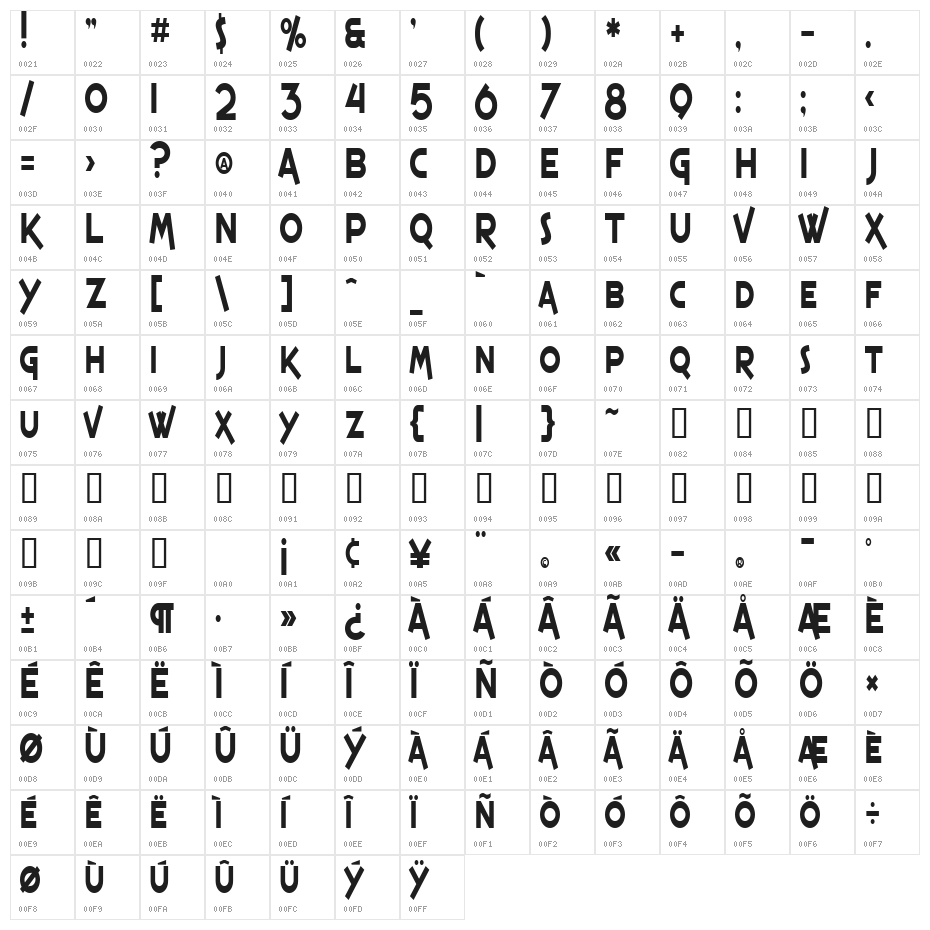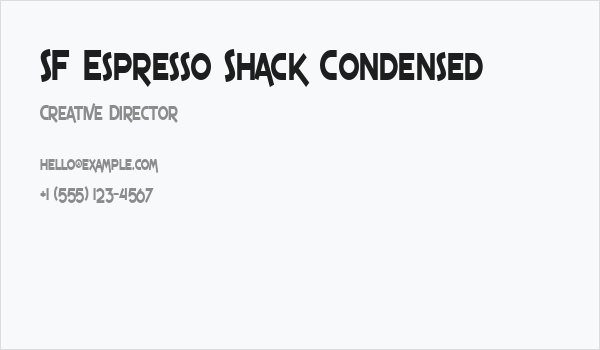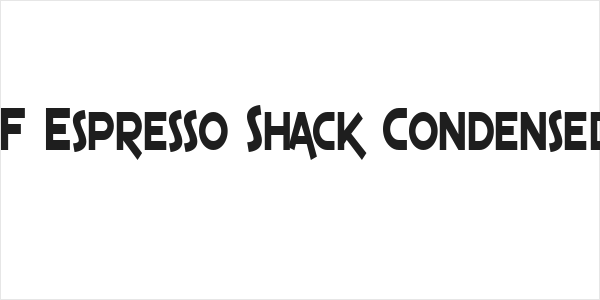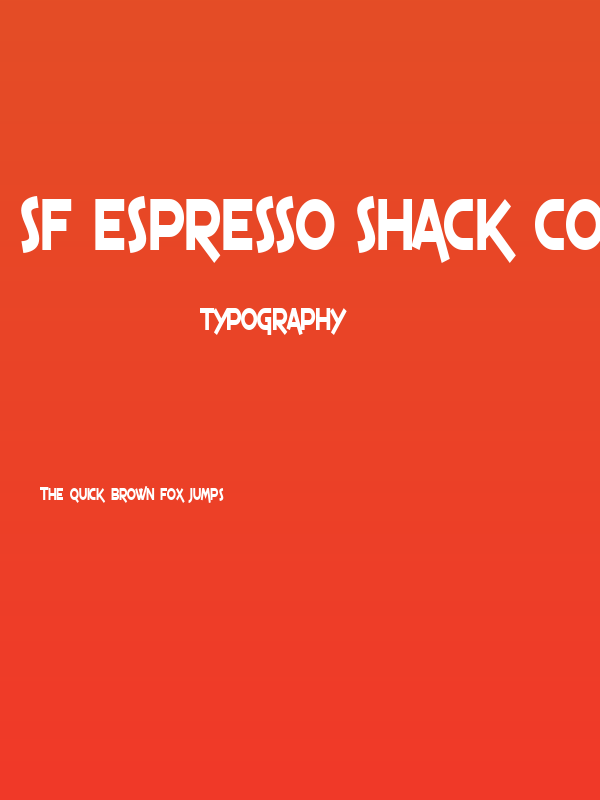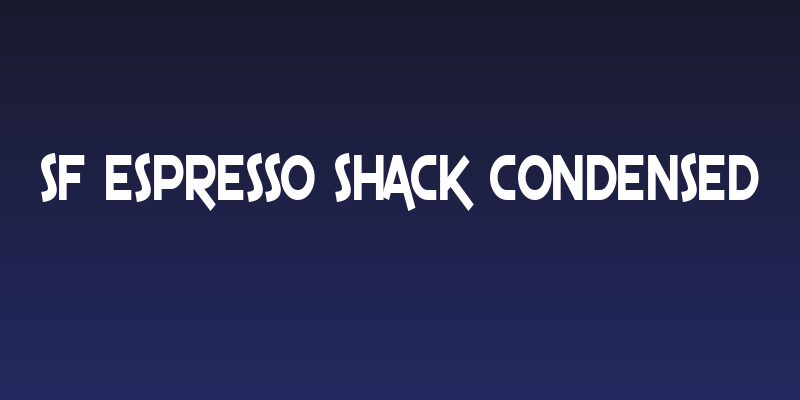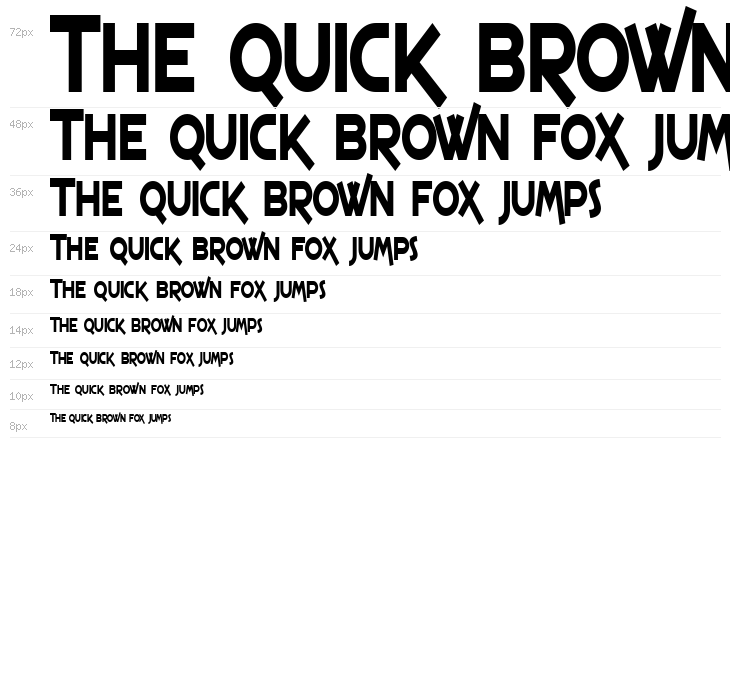
SF Espresso Shack Condensed Font
SF Espresso Shack Condensed Description
This font features a bold and condensed style with a strong geometric influence. The characters are tightly spaced, creating a compact and impactful appearance. The uppercase letters are particularly striking, with sharp angles and clean lines that convey a sense of modernity and strength. The numerals are equally bold, maintaining the geometric theme with consistent stroke widths. Special characters are designed to match the overall aesthetic, ensuring a cohesive look across all text elements. This font is ideal for making a statement, whether in headlines or logos.
| Proposed Projects | Ideal for branding, poster design, and any project requiring a bold, modern typeface. |